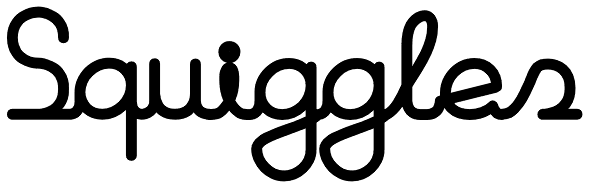
Squiggles
Originally a love/hate typeface it slowly changed into the typeface Squiggles. It can be described as a cursive serif font, to be used in titles and single lines of text. Squiggles is also clinically proven to make you sexy, well groomed and...
Squiggles
Squiggles Bastard